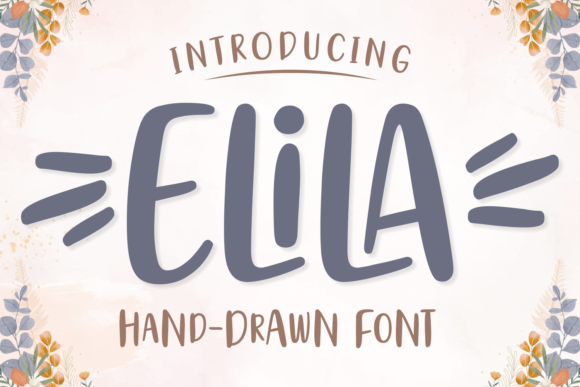
Elila Font: A Fun and Playful Handwritten Font for Your Creative Projects
Are you looking for a font that can add a touch of playfulness and creativity to your next project? Look no further than Elila Font. This fun and playful handwritten font is perfect for designers, artists, and writers who want to add a personal touch to their work. In this article, we’ll take a closer look at Elila Font, its features, and how you can use it to take your creative projects to the next level.
What is Elila Font?
Elila Font is a modern handwritten font that is designed to be fun, playful, and creative. It is perfect for a wide range of projects, including branding, packaging, advertising, and more. The font is carefully crafted to give your text a personal and unique touch, making it stand out from the crowd.
Key Features of Elila Font
So, what makes Elila Font so special? Here are some of its key features:
- Handwritten style: Elila Font has a beautiful handwritten style that gives your text a personal and unique touch.
- Playful and fun: The font is designed to be playful and fun, making it perfect for projects that require a lighthearted and creative approach.
- Additional ligatures and accents: Elila Font comes with additional ligatures and accents that provide you with even more creative possibilities.
- Easy to read: Despite its playful style, Elila Font is easy to read, making it perfect for body text and headlines.
Benefits of Using Elila Font
So, why should you use Elila Font in your next project? Here are some benefits of using this amazing font:
- Adds a personal touch: Elila Font adds a personal touch to your text, making it stand out from the crowd.
- Increases creativity: The font’s playful and fun style can increase creativity and inspire new ideas.
- Perfect for branding: Elila Font is perfect for branding projects, as it can help create a unique and memorable identity for your brand.
- Customize the font: Customize the font to fit your needs, using the additional ligatures and accents to add a personal touch.
Tips and Tricks for Using Elila Font
Here are some tips and tricks for using Elila Font:
- Use it for headlines: Elila Font is perfect for headlines, as it adds a playful and fun touch to your text.
- Mix it with other fonts: Mix Elila Font with other fonts to create a unique and interesting contrast.
- Experiment with colors: Experiment with different colors to add an extra layer of creativity to your text.
- Use it for body text: Elila Font is easy to read, making it perfect for body text and paragraphs.
In conclusion, Elila Font is a fun and playful handwritten font that is perfect for designers, artists, and writers who want to add a personal touch to their work. With its additional ligatures and accents, Elila Font provides you with even more creative possibilities. Whether you’re working on a branding project, a website, or a social media post, Elila Font is a great choice. So, why not give it a try and see how it can take your creative projects to the next level?